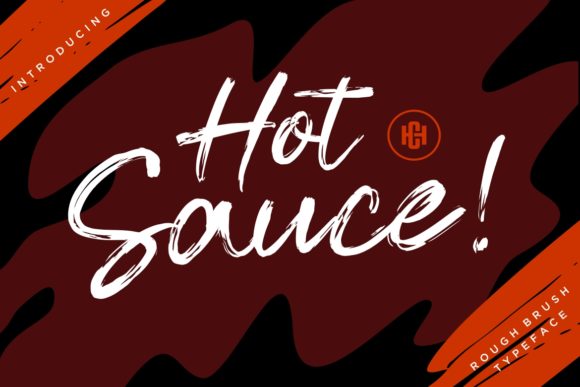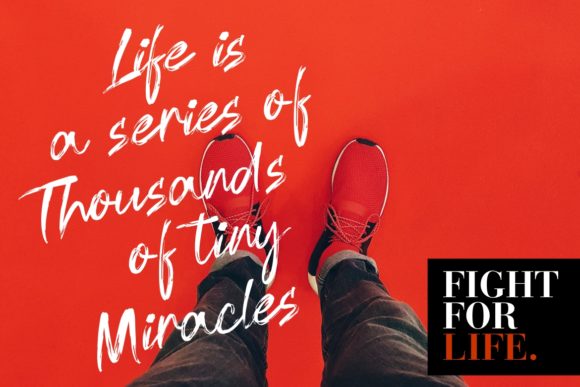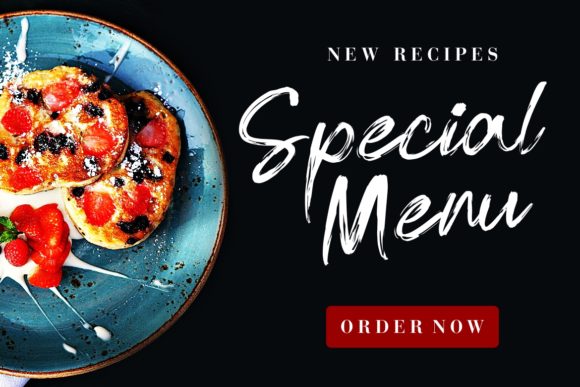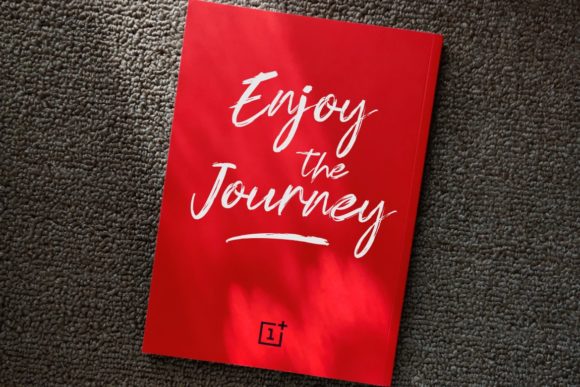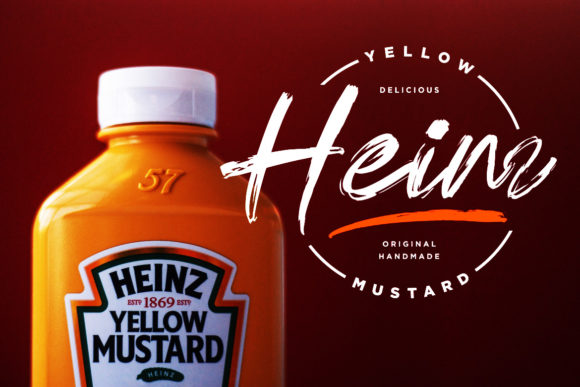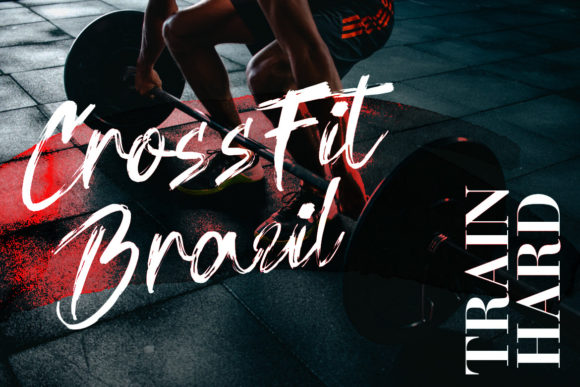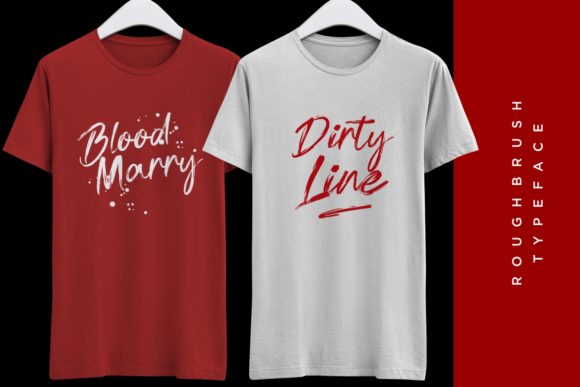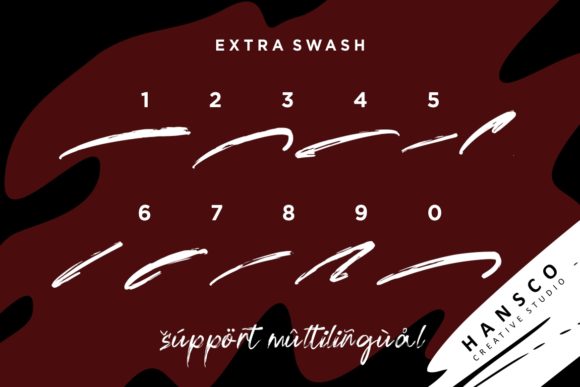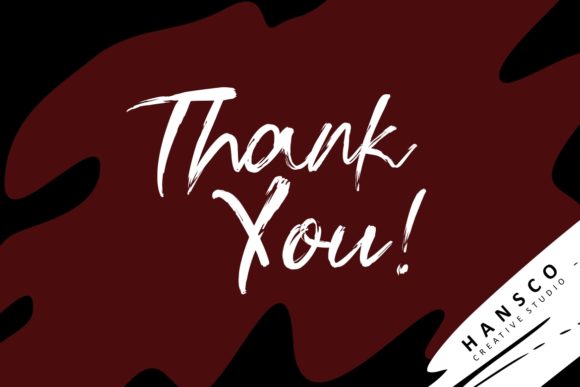
Hot Sauce Font
About Hot Sauce Font
Hot Sauce is a gorgeous handwritten font with an incredibly realistic handwriting style. This unique typeface will add an authentic feel to any design project!